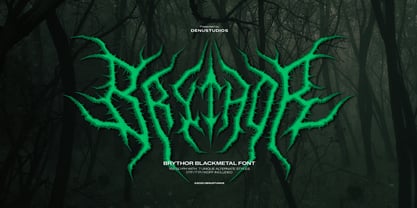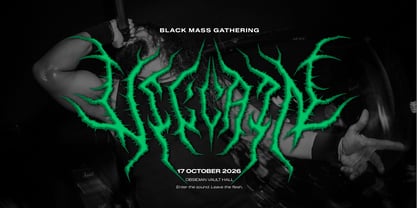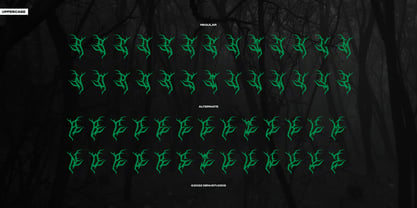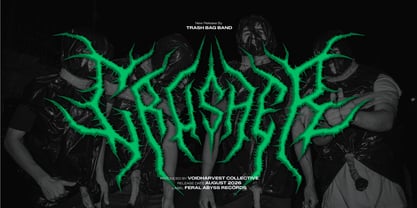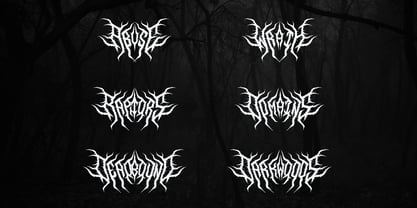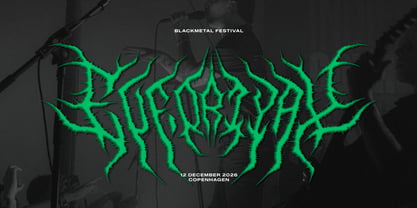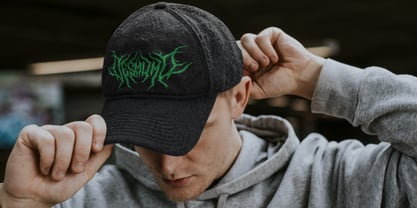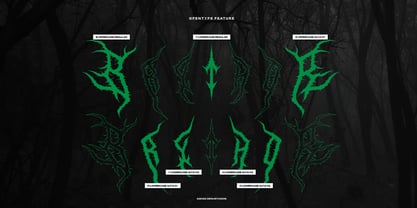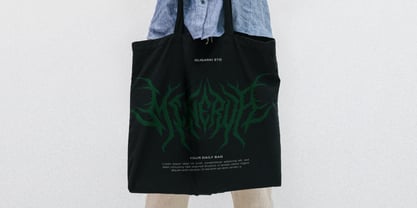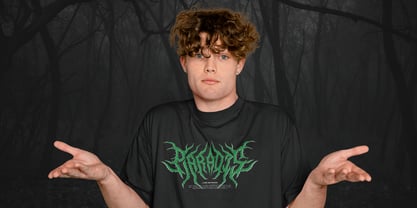
Brythor
by Denustudio
The Brythor Font Family was designed by Dede Nugraha and published by Denustudio. Brythor contains 1 styles. More about this family
Brythor | Black Metal Typeface, from Denustudios, suitable for any projects such as: logos, branding projects, homeware designs, product packaging, mugs, quotes, posters, shopping bags, t-shirts, book covers, name card, invitation cards, greeting cards, label, photography, watermark, special events, and all your other lovely projects that need Black Metal a taste.